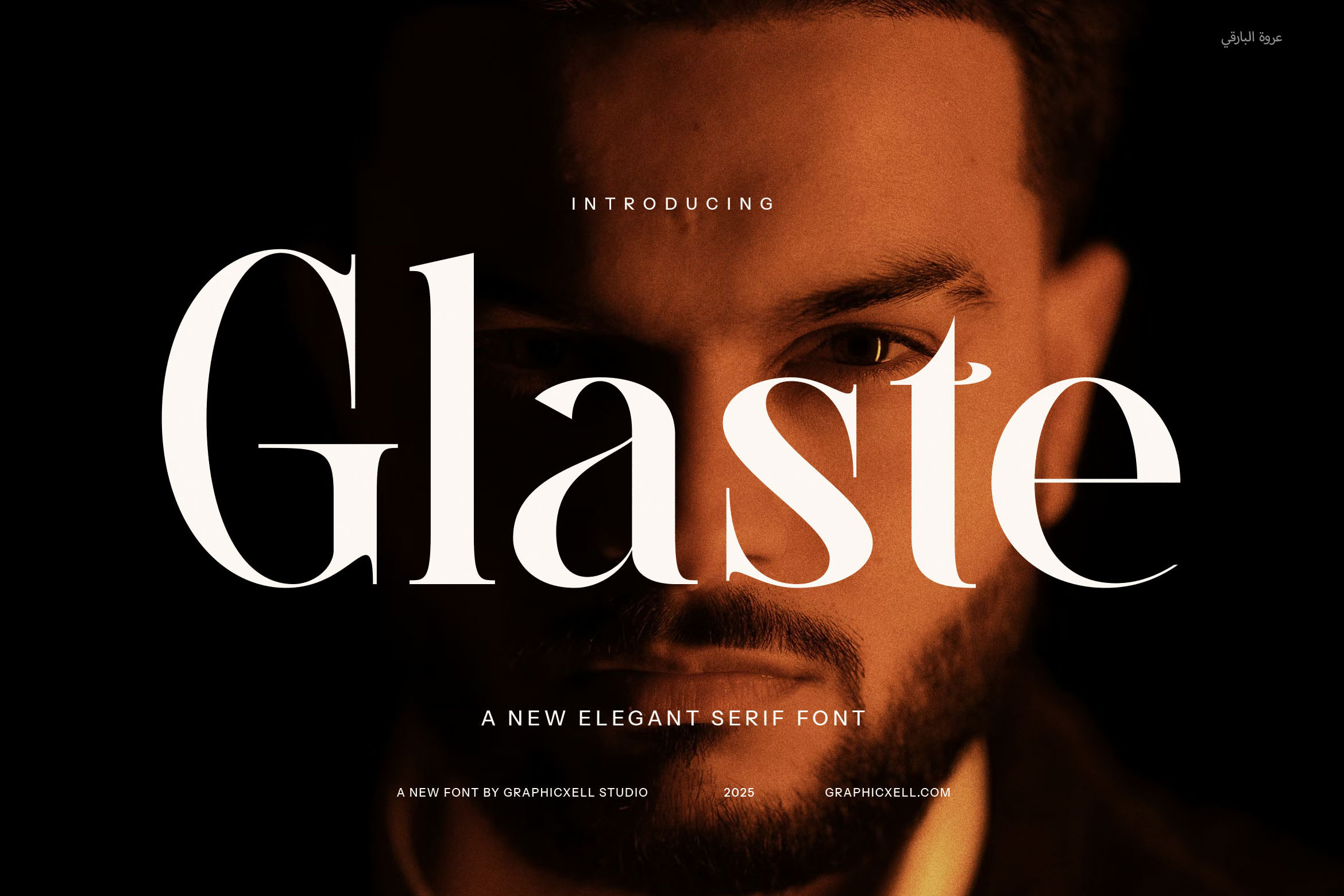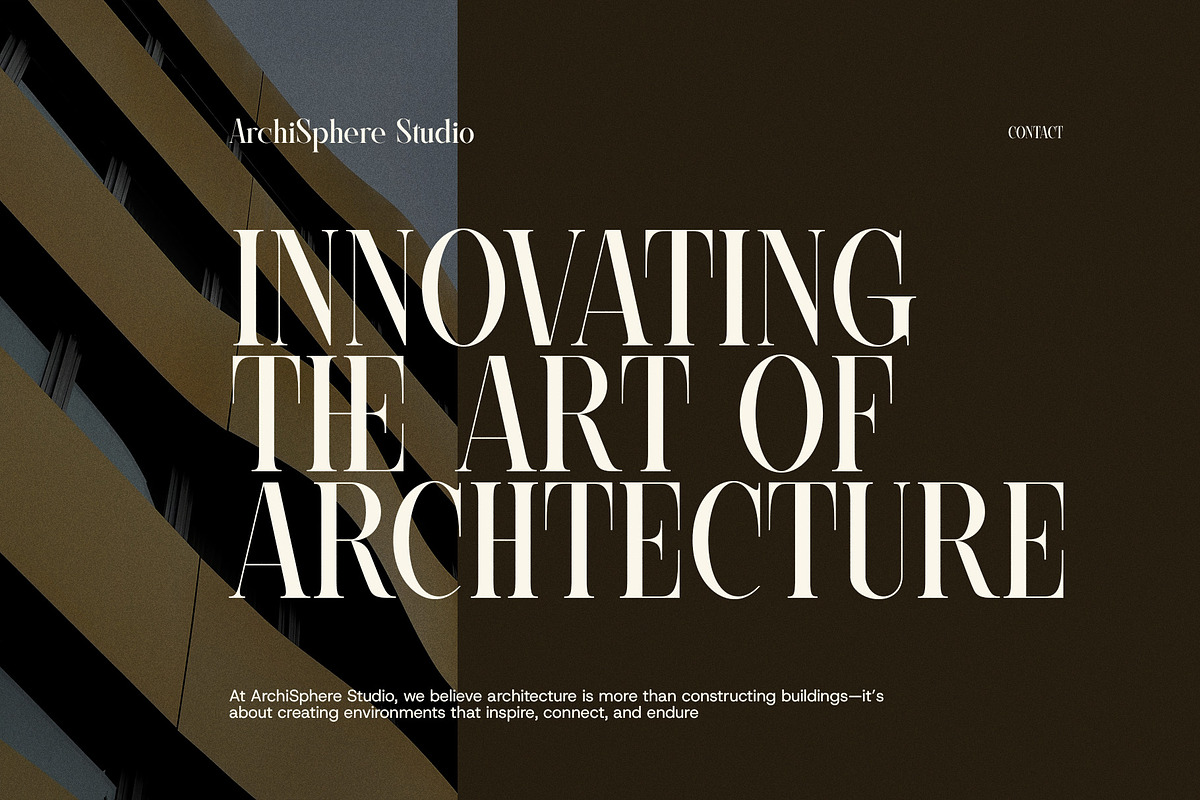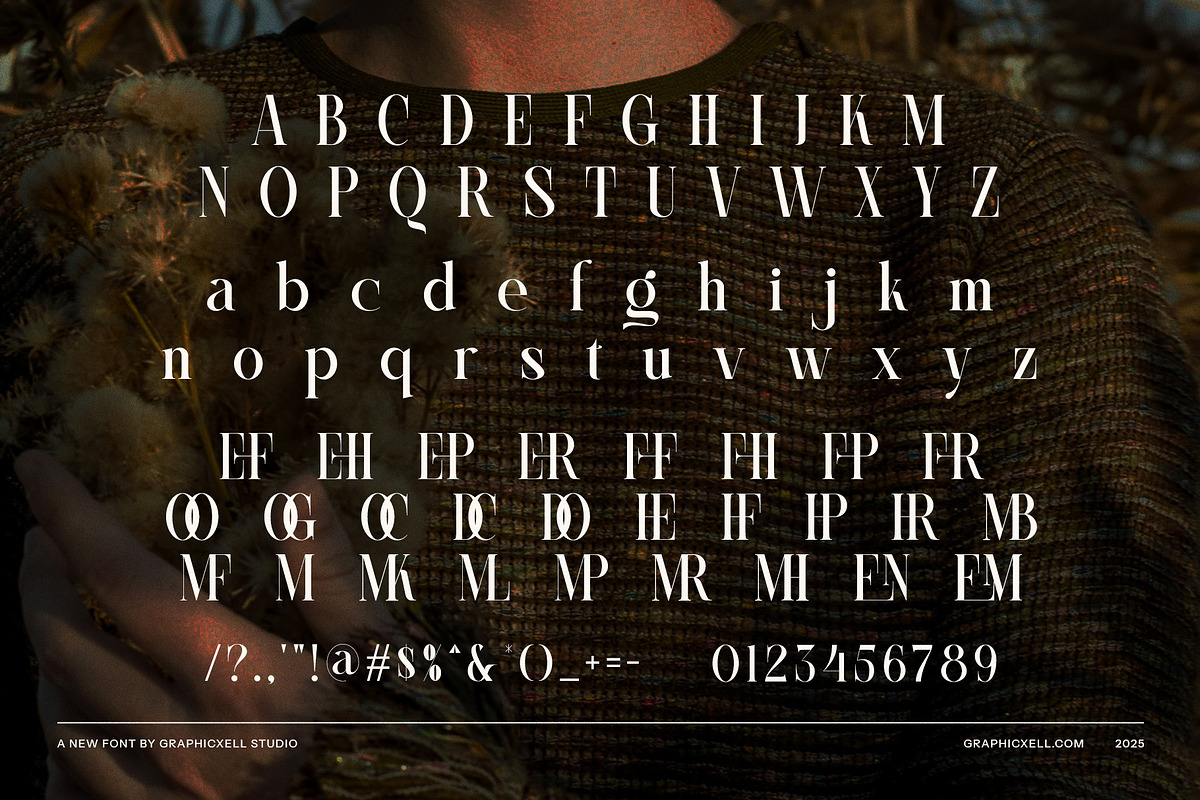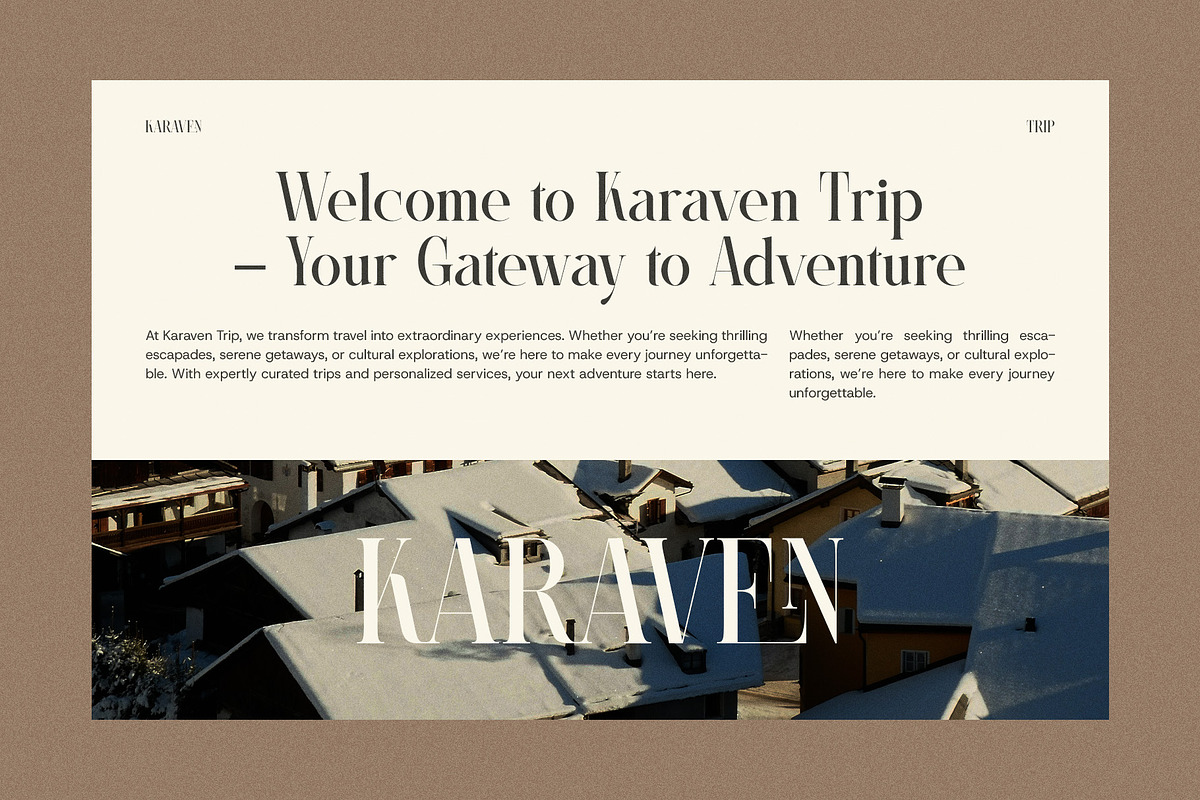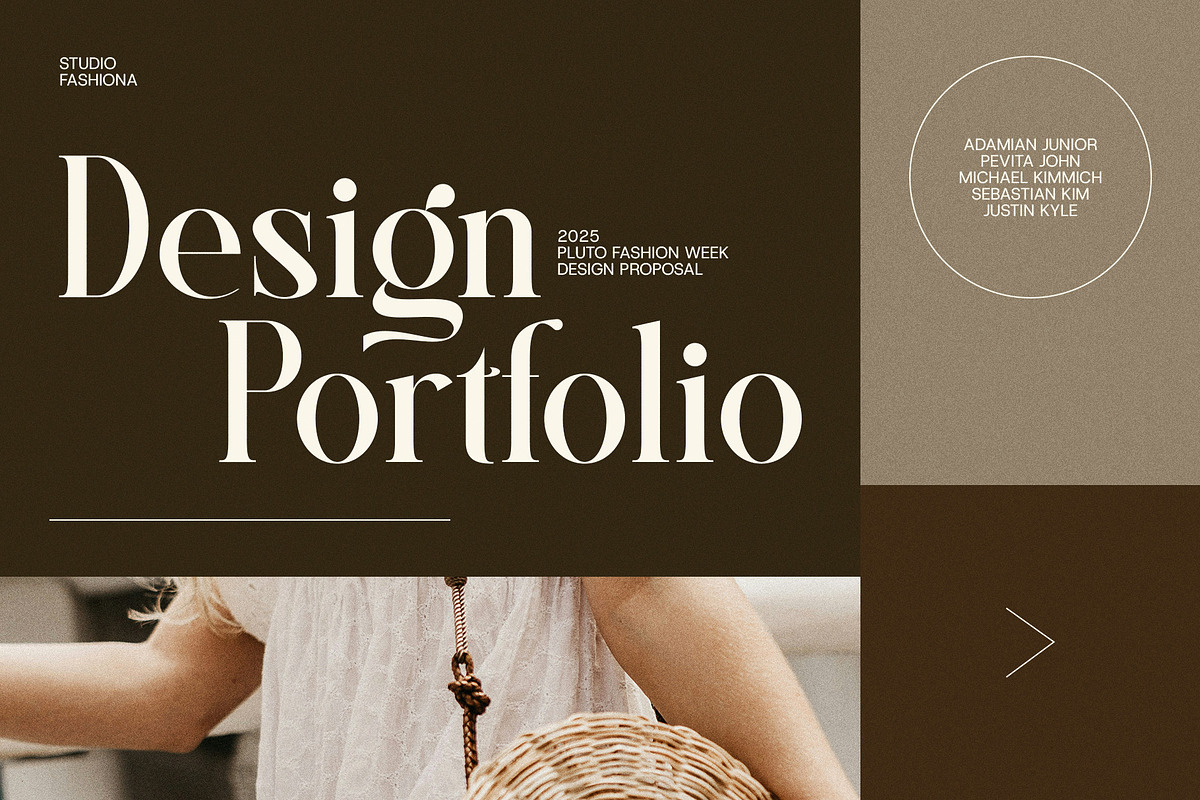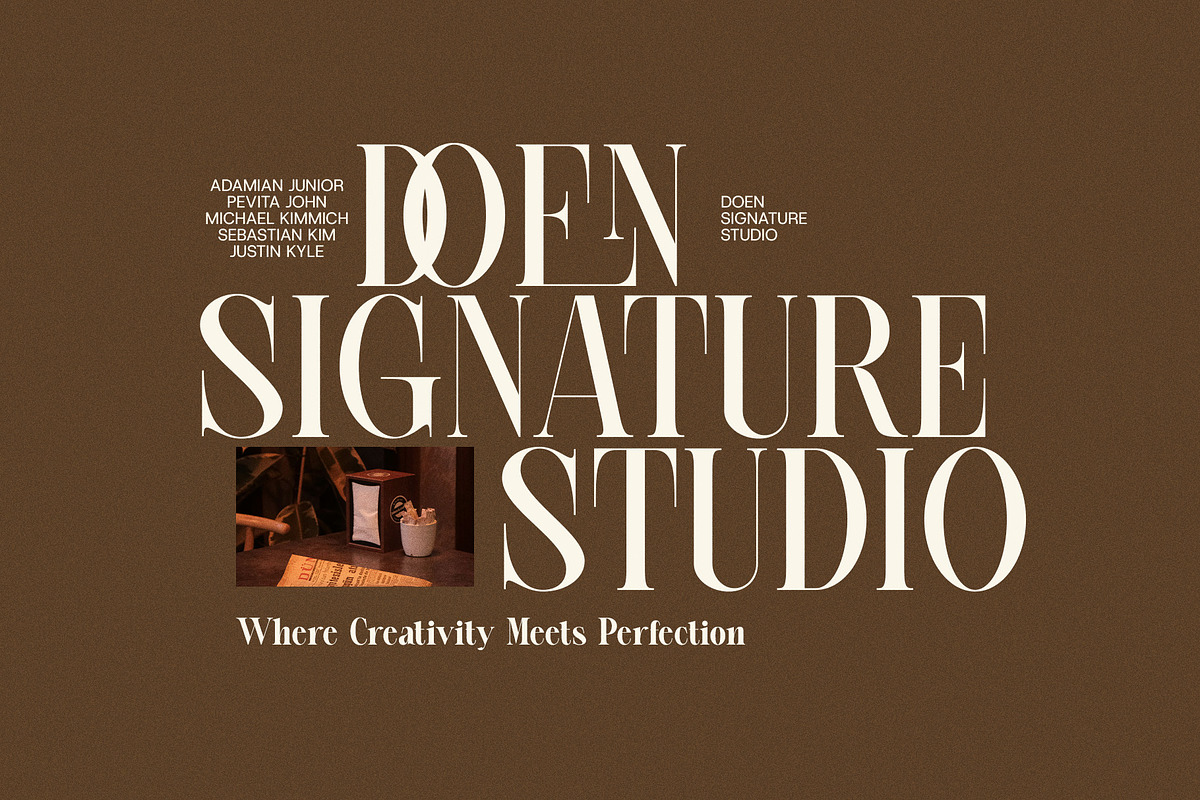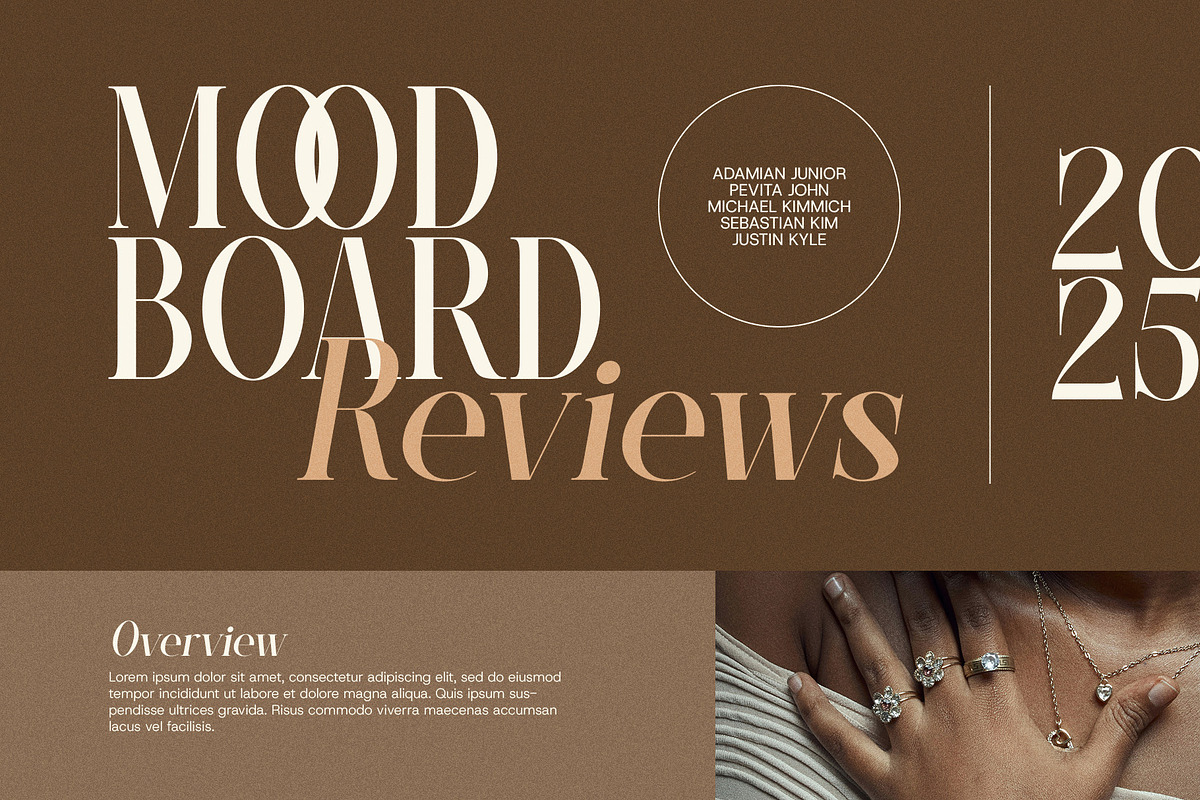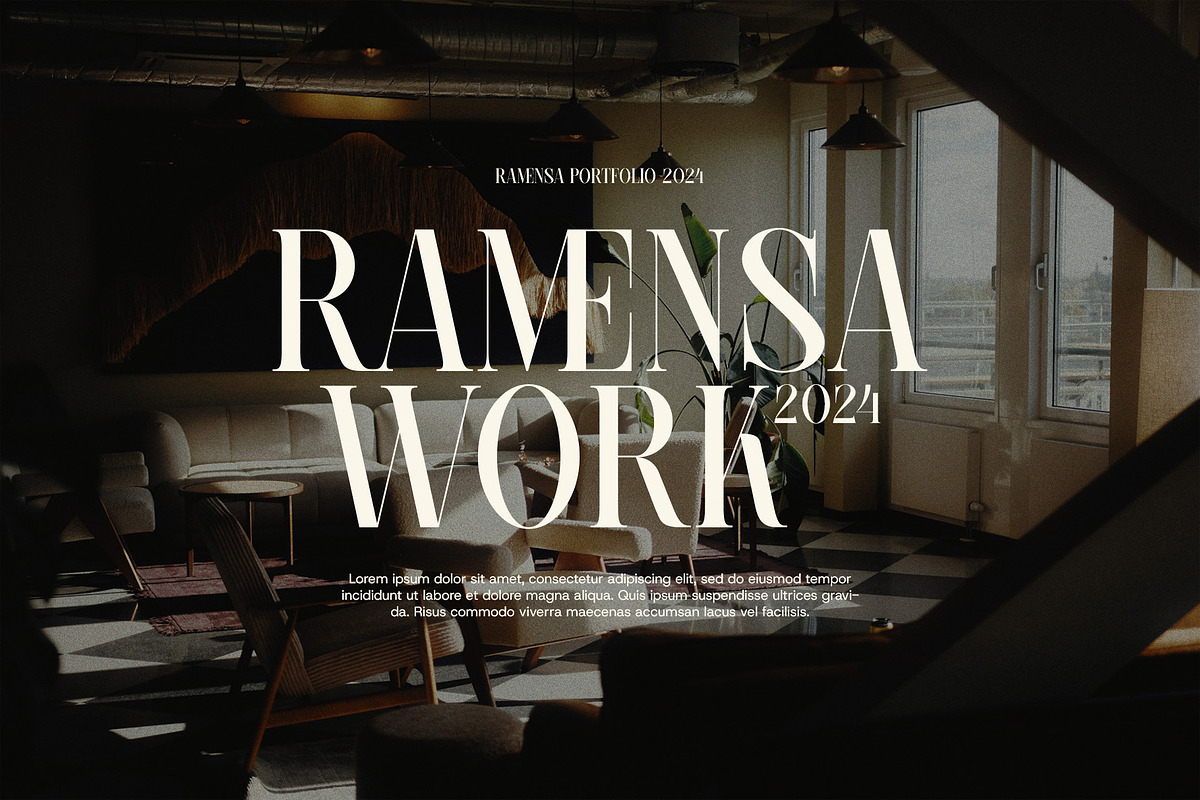
Glaste Elegant Serif Font
Glaste Elegant Serif Font is a contemporary and stylish typeface that effortlessly combines modern elegance with timeless sophistication. Designed with attention to detail, this font features finely crafted serifs, smooth curves, and unique ligatures, which allow for flexible design options and distinct typographic expressions. Glaste’s alternate forms further enhance its versatility, enabling designers to create customized, one-of-a-kind compositions.
Perfect for premium branding, Glaste excels in logo design, offering an elegant yet bold aesthetic that ensures your brand stands out. Whether for luxury product packaging, high-end advertisements, or boutique identities, this font brings a touch of refinement to any project. Its sleek and polished design makes it an ideal choice for businesses looking to convey sophistication and professionalism.
Glaste is also an exceptional choice for editorial and digital layouts, such as magazines, websites, and brochures. Its beautiful blend of readability and style ensures that it works seamlessly in both large headings and smaller body text, offering a cohesive and polished look across all types of content. From eye-catching articles to elegant product descriptions, Glaste adds a touch of class and readability to every design.
Whether you're working on branding for a fashion label, a food product, or a luxury service, Glaste Elegant Serif Font is an ideal choice for designers who want to add a modern, refined touch to their work. Elevate your design projects with Glaste, and let its elegant features speak for themselves.